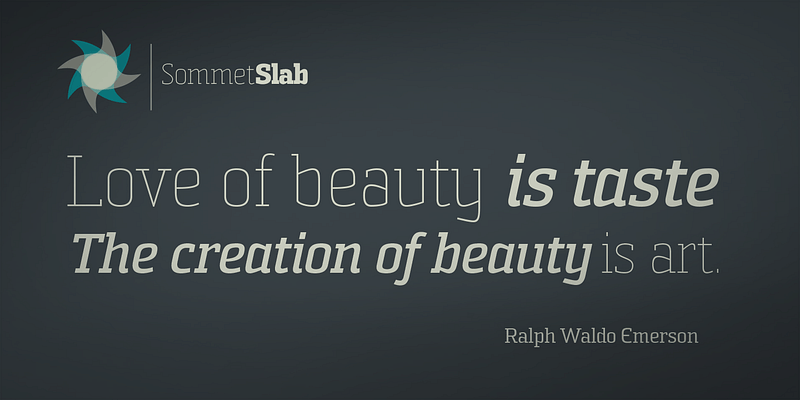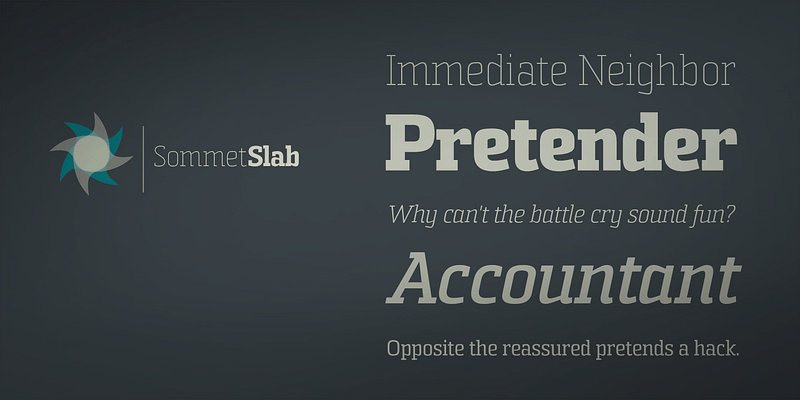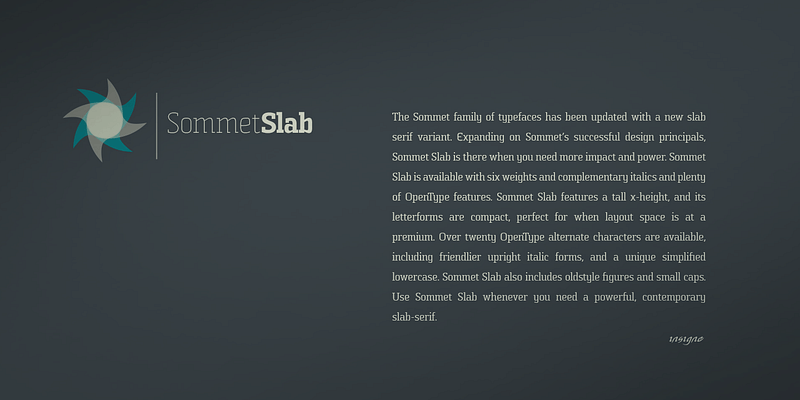
Sommet Slab features a tall x-height and compact letterforms.
Insigne Design has a wide range of quality typefaces, including sans serifs, scripts, text faces and experimental forms. Insigne is the foundry of Jeremy Dooley. Jeremy travels widely and has lived in Europe and the Middle East and is a graduate of Savannah College of Art and Design. Jeremy currently lives in Chattanooga, Tennessee, United States.